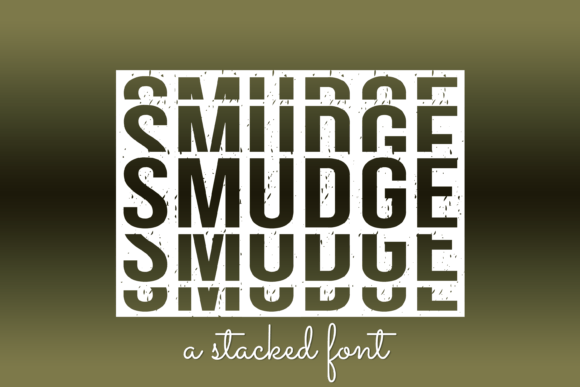
Embark on a Typographic Journey with Smudge Font: A Gateway to Creative Expression
In the realm of digital artistry and visual communication, fonts hold the power to transform ordinary words into captivating expressions. They possess the uncanny ability to evoke emotions, set the tone, and leave a lasting impression on the beholder. Among the vast array of fonts that grace the digital landscape, Smudge Font stands out as a true gem, a font family specifically designed for display purposes, ready to elevate your creative projects to new heights.
Crafted with meticulous care and attention to detail by the skilled artisans at WADLEN, Smudge Font embodies the essence of creativity and innovation. Its name, aptly chosen, reflects the font's ability to add a touch of smudged charm and artistic flair to any design. Whether you're a seasoned graphic designer, a budding artist, or simply someone who appreciates the beauty of typography, Smudge Font is the perfect tool to add a dash of personality and visual interest to your work.
The Smudge Font family boasts a diverse range of weights and styles, each possessing its own unique character and charm. From the delicate elegance of the Light variant to the bold and assertive presence of the Black variant, Smudge Font offers an array of options to suit the needs of any project. And with its extensive language support, this font can cater to a global audience, allowing you to communicate your message in a multitude of tongues.
Unleash the Creative Potential Within: Dive into a World of Endless Possibilities
With Smudge Font as your creative companion, the possibilities are boundless. Let your imagination run wild as you explore the myriad ways in which this font can enhance your designs. Create eye-catching headlines that demand attention, craft stunning logos that leave a lasting impression, or design captivating social media graphics that engage and inspire your audience.
The beauty of Smudge Font lies in its versatility. It seamlessly blends with various design aesthetics, from the playful and whimsical to the sophisticated and elegant. Whether you're working on branding materials, website designs, or marketing campaigns, Smudge Font has the power to elevate your creations and make them stand out from the crowd.
Beyond its aesthetic appeal, Smudge Font is also incredibly easy to use. Its intuitive design and user-friendly interface make it accessible to designers of all skill levels. Whether you're a seasoned professional or just starting out, you'll find that working with Smudge Font is an absolute pleasure.
Join the Creative Revolution: Embrace the Power of Smudge Font
If you're ready to embark on a typographic adventure, Smudge Font is your perfect guide. Its captivating charm, versatility, and ease of use make it the ideal choice for designers seeking to add a touch of magic to their creations.
Don't let this opportunity pass you by. Embrace the power of Smudge Font today and unlock the full potential of your creativity. Let your designs shine with a brilliance that will leave your audience spellbound.